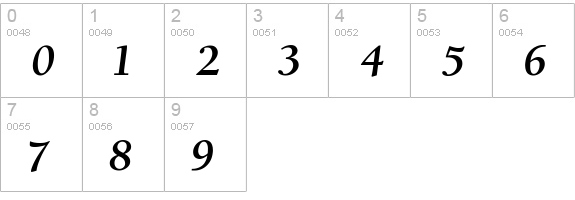
Berkeley Oldstyle Bold Italic Font Details
Berkeley Oldstyle Bold Italic is a strong, high-contrast, italic variant in the Berkeley typeface family \xE2\x80\x94 well suited to headlines, attention-grabbing titles, and strong calls-to-action.
Berkeley Oldstyle Bold Italic font is a timeless and sophisticated typeface that exudes elegance and classic charm. Its bold and italic design adds a touch of flair and distinction to any project, making it perfect for headings, titles, and other attention-grabbing text. The robust serifs and graceful slant of this font create a harmonious balance that is both striking and easy to read. What makes Berkeley Oldstyle Bold Italic even more appealing is the fact that it is available for free download at FontsMarket.com. Whether you are a designer looking to add a touch of sophistication to your work or a writer wanting to make your words stand out, this font is a versatile and stylish choice. Download Berkeley Oldstyle Bold Italic today and elevate your designs with its timeless appeal.